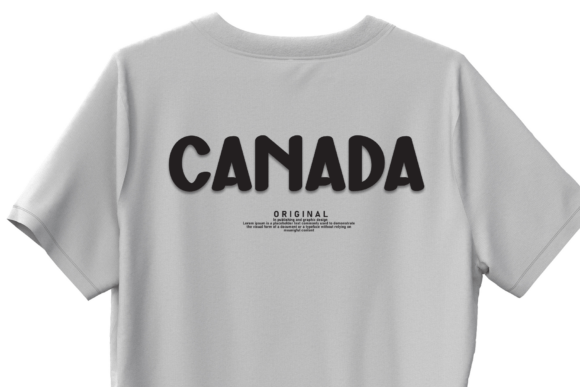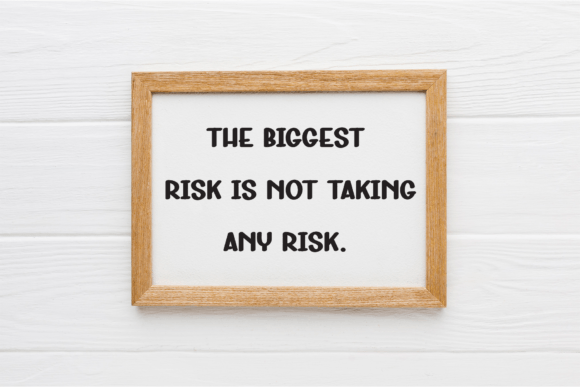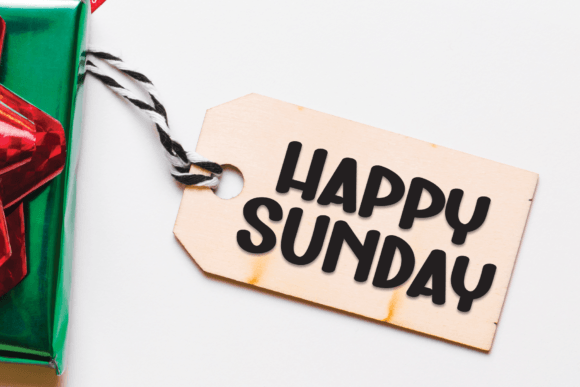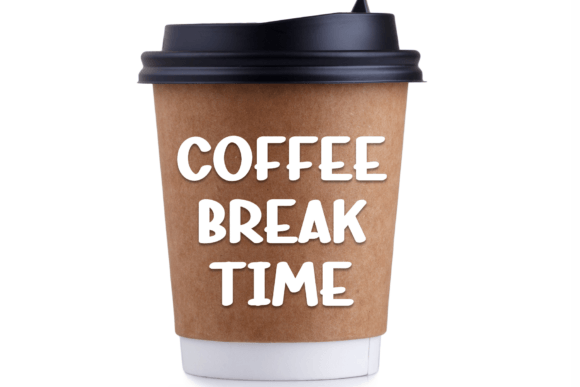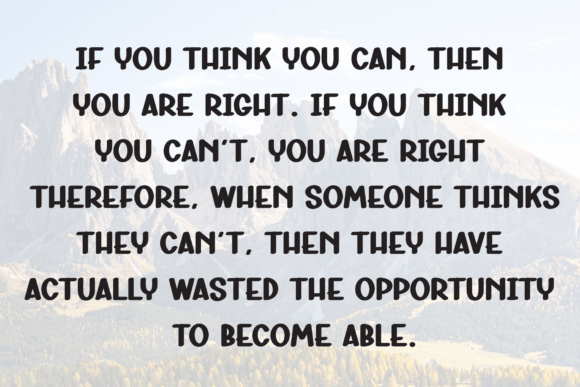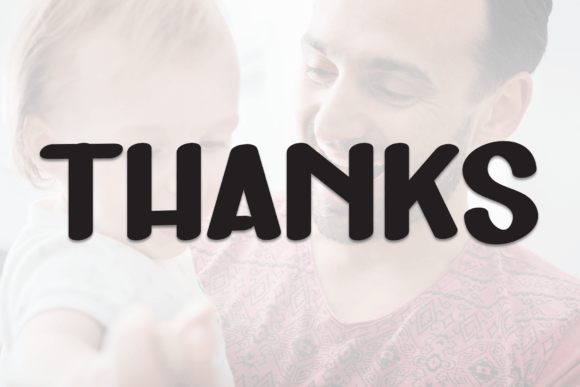
Introducing Daddy Happy Font: The Sweetest Addition to Your Design Toolkit
Have you ever been working on a design project, and suddenly, you’re stuck on finding the perfect font? I recall a particularly frustrating moment when I was designing a wedding invitation for a friend’s special day. The design was almost complete, but the font just wasn’t right. It was either too formal, too bland, or too over-the-top. That’s when I stumbled upon Daddy Happy Font, and it instantly transformed my design from meh to mesmerizing!
The Daddy Happy Font Difference
Daddy Happy Font is a charming and amiable masterpiece; a handwritten display font that exudes sweetness and affability. Its adorable and lively character imbues your design with an element of fun, making it not just a medium of communication but an expression of creativity and joy. This font is perfect for penning down beautiful wedding invitations, heartwarming cards, and any other design project that requires a touch of whimsy and playfulness.
- ✨ Unique and quirky character set that’s sure to make your designs stand out
- ✅ Easy to read and understand, even in smaller font sizes
- 💕 Perfect for designs that require a touch of warmth and personality
⚠️ While Daddy Happy Font is an amazing addition to any design project, it’s essential to note that it may not be suitable for more formal or corporate designs. Additionally, some users have reported that the font can be a bit finicky when used in certain software or platforms.
🤔 One thing to keep in mind is that Daddy Happy Font is a display font, so it’s best used in larger font sizes (around 24-36 points) to really make it shine.
The Story Behind Daddy Happy Font
Daddy Happy Font was created with the intention of spreading joy and happiness through design. Its creator, a passionate typographer and designer, wanted to craft a font that would bring a smile to people’s faces and add a touch of whimsy to their designs. With its unique character set and lively personality, Daddy Happy Font is sure to become a favorite among designers and crafters alike.
Q: Is Daddy Happy Font suitable for body text?
A: While Daddy Happy Font is a beautiful and legible font, it’s best used as a display font in larger font sizes. For body text, you may want to consider a more traditional font.